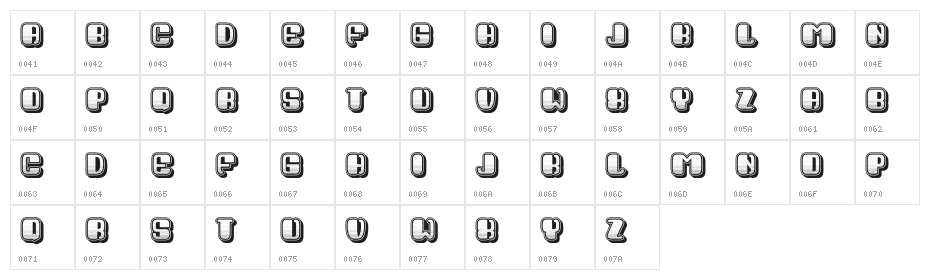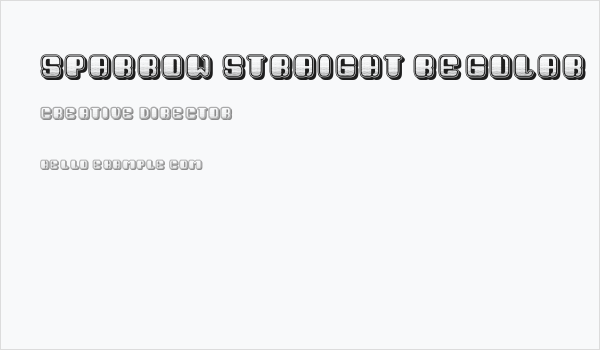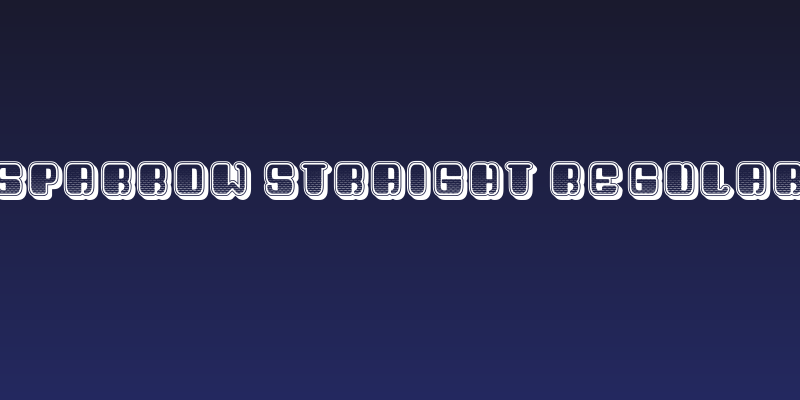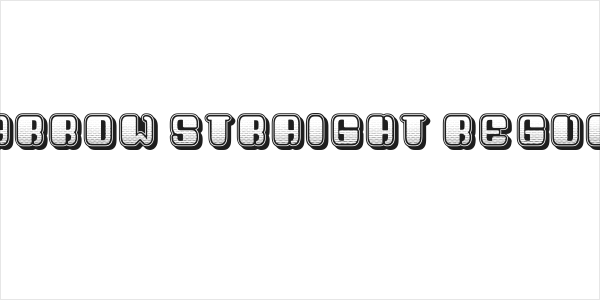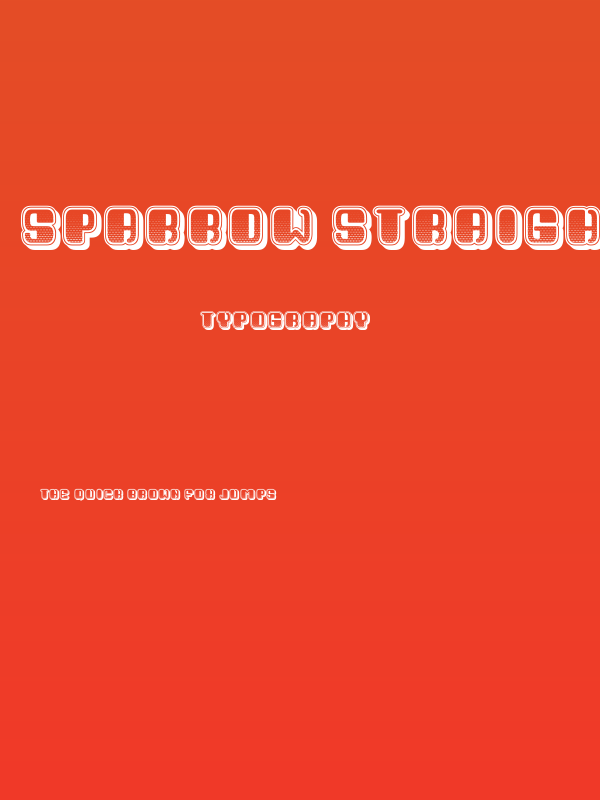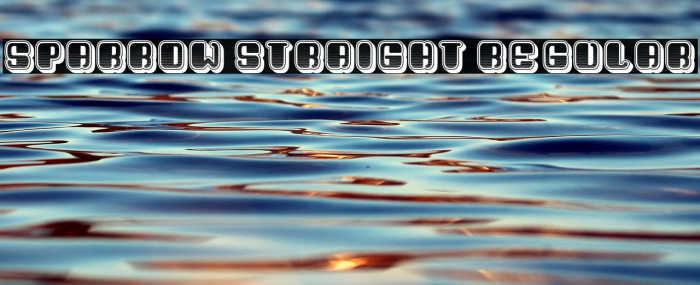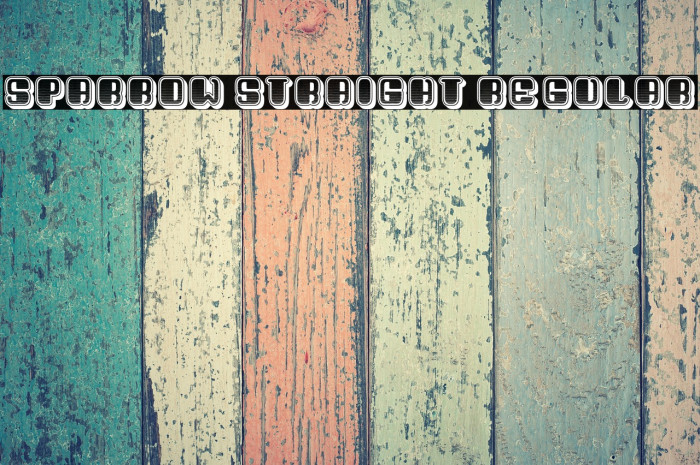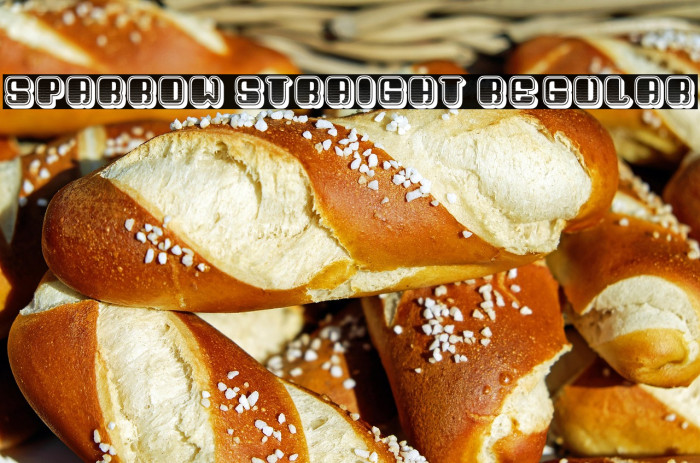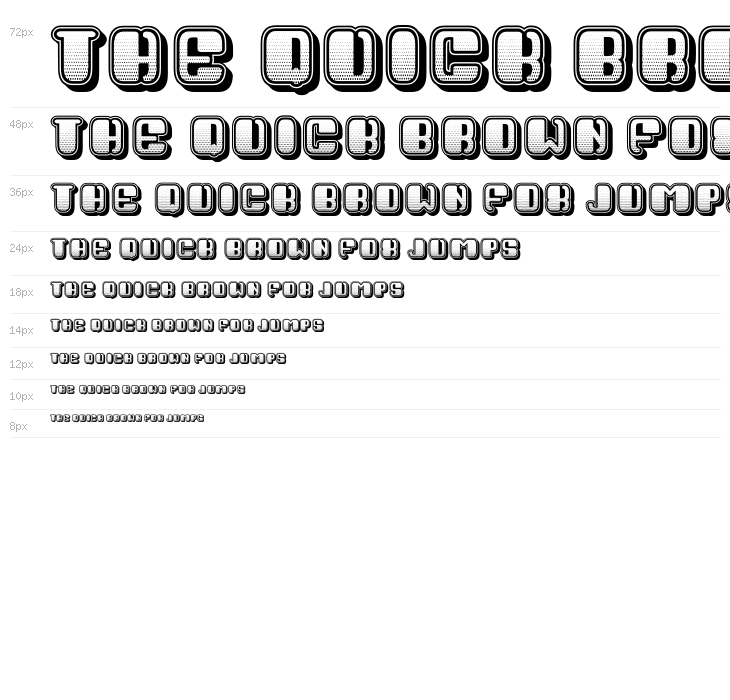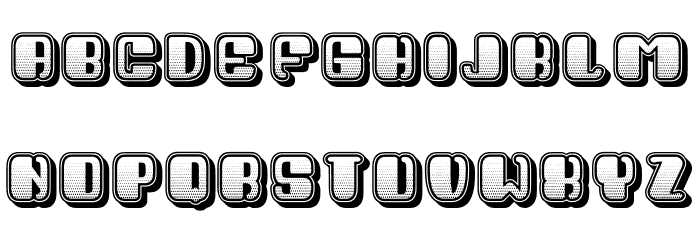
Sparrow Straight Regular Font
Sparrow Straight Regular Description
This font features a bold, playful design with a three-dimensional effect created by a shadow and a dotted texture within each character. The letters are uppercase and have a rounded, bubble-like appearance, giving them a friendly and approachable feel. The bold outlines and inner shading add depth and make the characters stand out, making it ideal for eye-catching designs. The font's unique style is reminiscent of comic book lettering or retro signage, adding a touch of nostalgia and fun to any project.
| Overall Style | Retro, Playful |
| Proposed Projects | Ideal for comic book covers, retro-themed posters, children's book titles, and playful branding. |